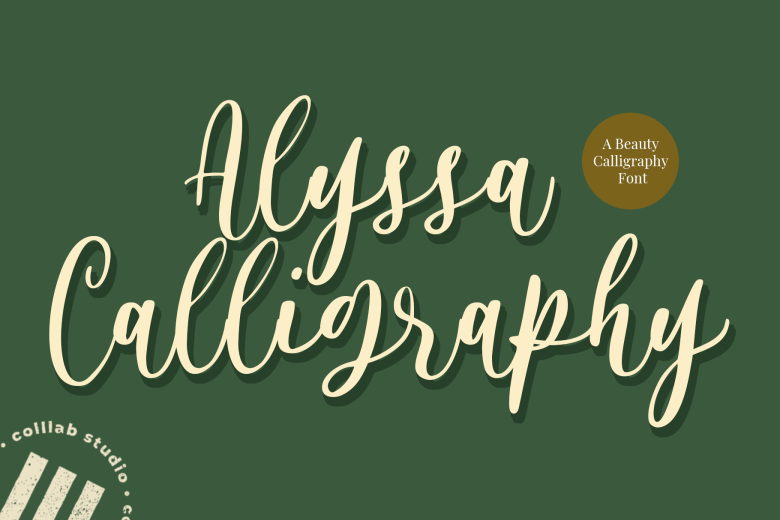
Alyssa Calligraphy Font Free
Alyssa Calligraphy Font
Alyssa Calligraphy is a magical and timeless handwritten font. Incredibly versatile, this font fits a wide variety of designs. Add it to your most creative ideas and notice how it makes them come alive.
Alyssa Calligraphy Font